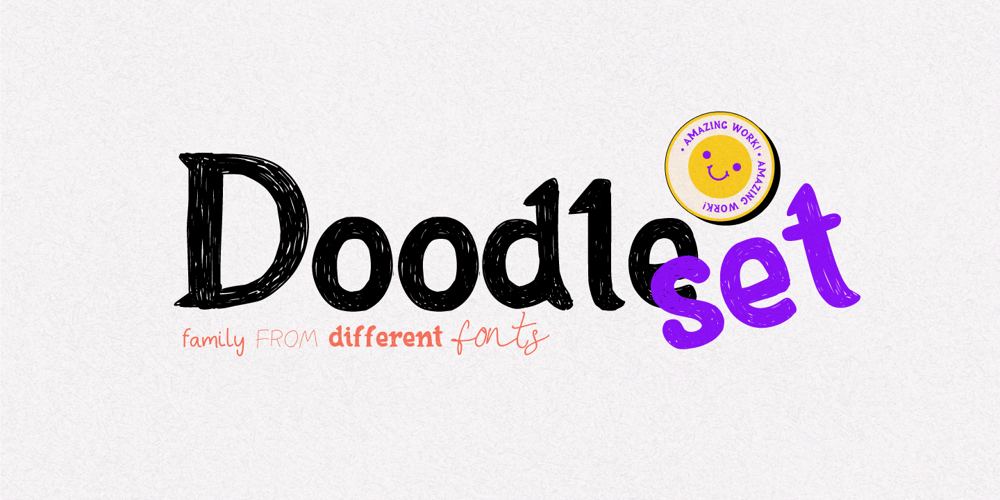
Doodleset Font Family was designed by Lauritta Ivanova and published by Luxfont. Doodleset contains 5 styles and family package options. Get ready to meet an unusual family of fonts – Doodleset! Here, each typeface is like a hero with a unique story, creating an amazing assortment.From designing inspirational quotes to designing advertisements and events, every font will become a tool for your ideas.Features:- Sans serif & Serif- Calligraphy and Script- Multilingual- Kerningld.luxfont@gmail.com